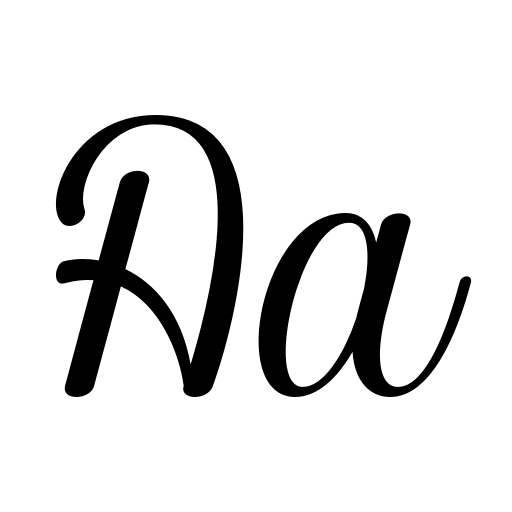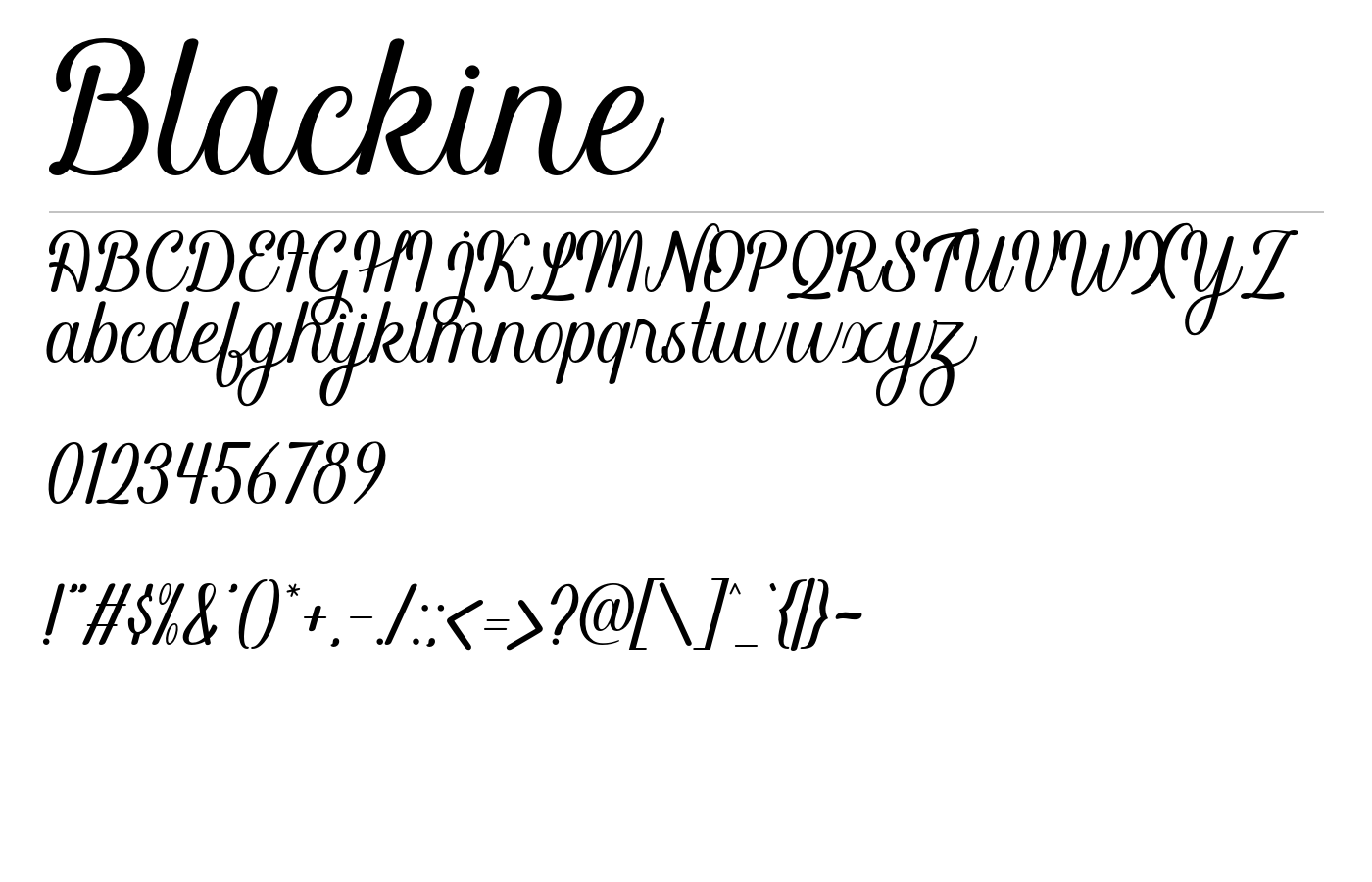
Blackine is a graceful, slender script font with elegant, flowing letterforms that convey a sense of sophistication and charm. Its smooth, consistent strokes and slightly condensed style make it perfect for adding a refined, personal touch to invitations, branding, and headlines where a stylish, handwritten feel is desired. This font shines in designs needing a delicate yet confident tone, blending modern simplicity with classic cursive beauty.
Blackine Font
About Blackine Font
| Font family | Blackine Font |
| Designer | Dida Ahluddin |